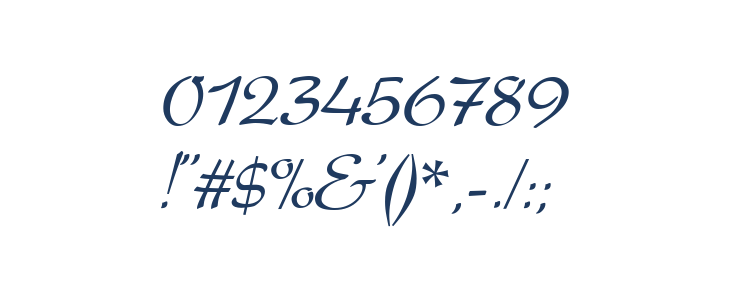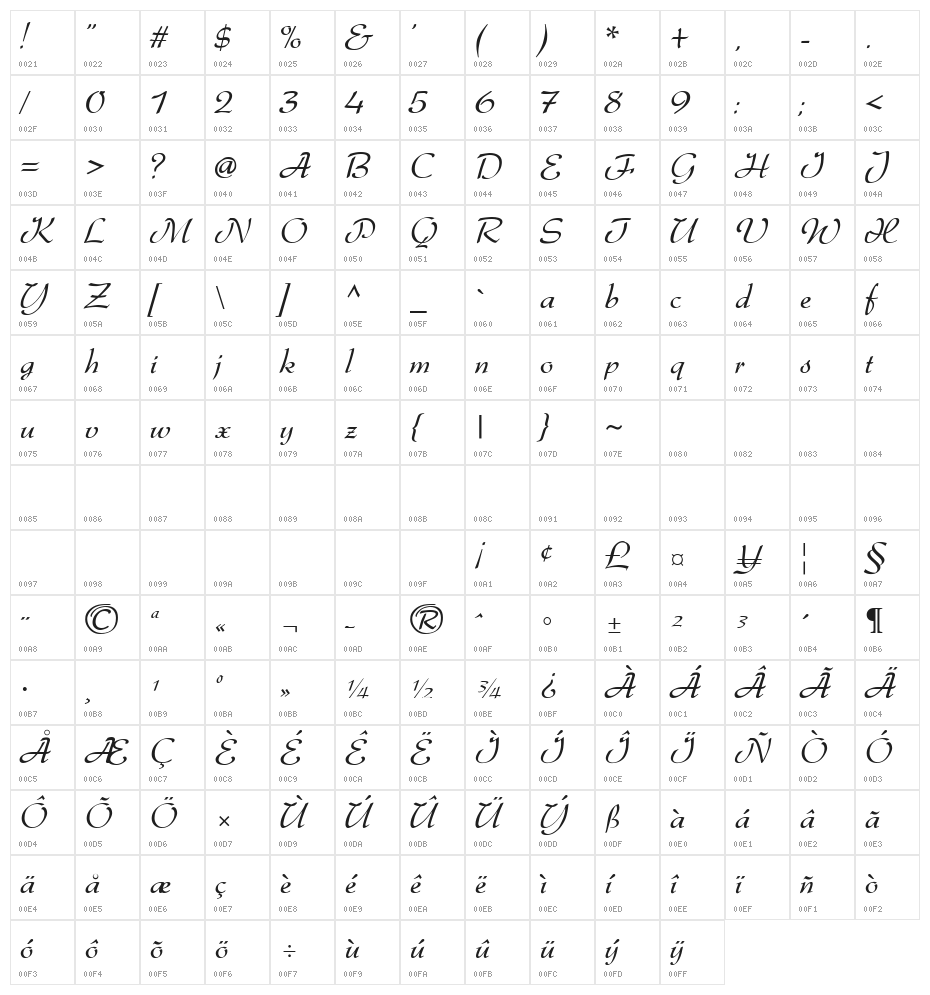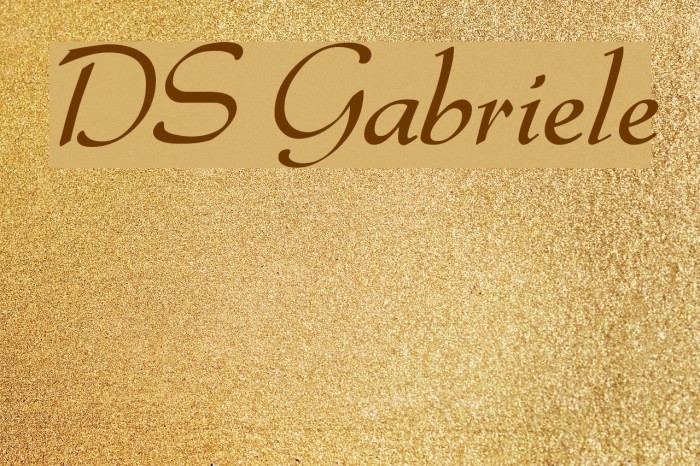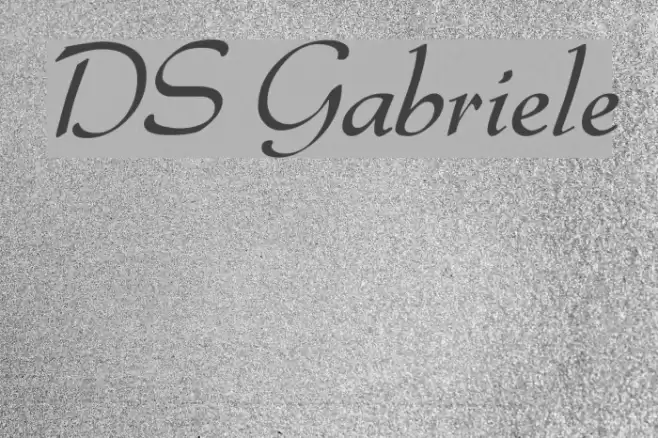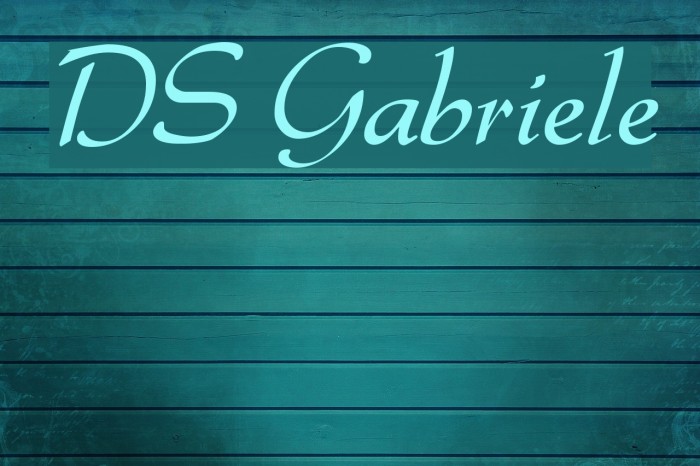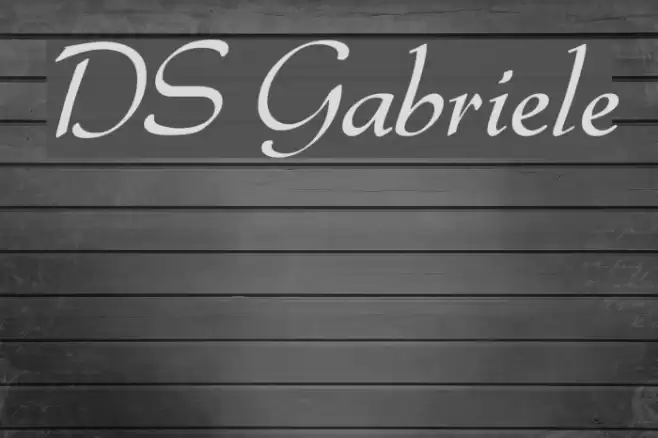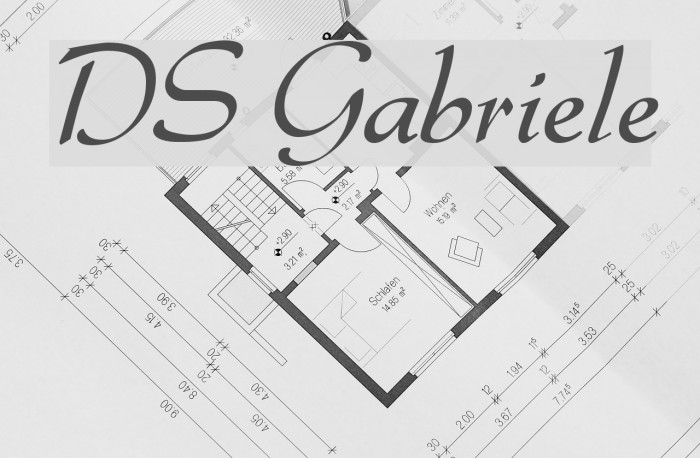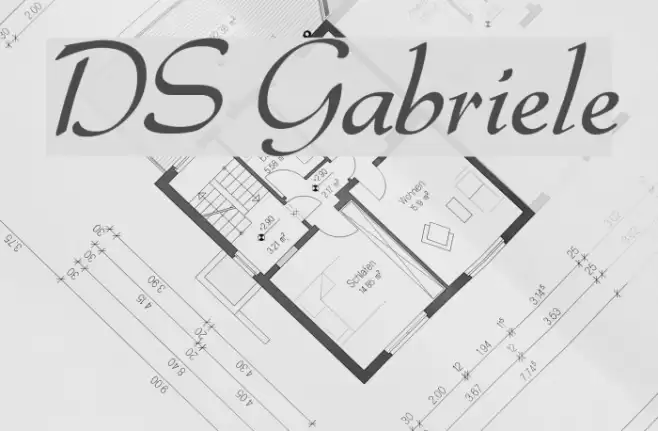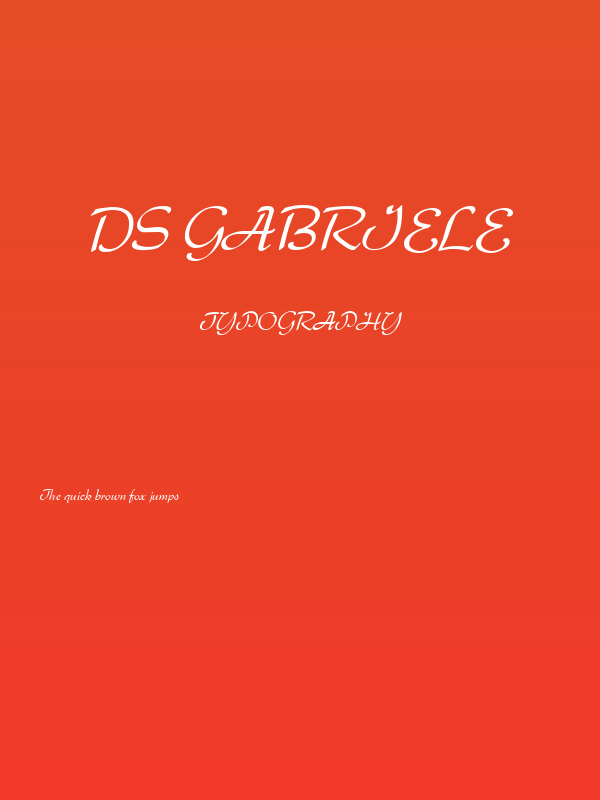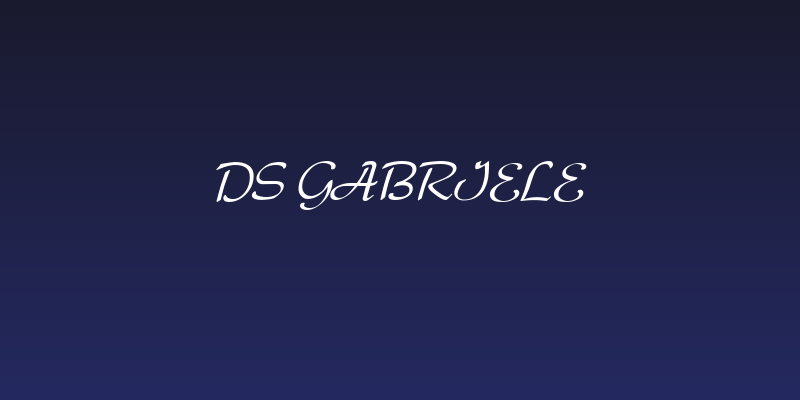
DS Gabriele Font
DS Gabriele Description
This font features an elegant and flowing script style, characterized by its smooth, cursive strokes and a sense of fluidity. The uppercase letters are slightly more ornate, with subtle flourishes that add a touch of sophistication. The lowercase letters maintain a consistent slant, enhancing the script's graceful appearance. Numbers are designed with a similar flair, ensuring uniformity across all characters. Special characters are integrated seamlessly, maintaining the overall aesthetic. This font exudes a classic yet modern feel, making it versatile for various design applications.
| Proposed Projects | Ideal for wedding invitations, elegant branding, greeting cards, and sophisticated logos. |